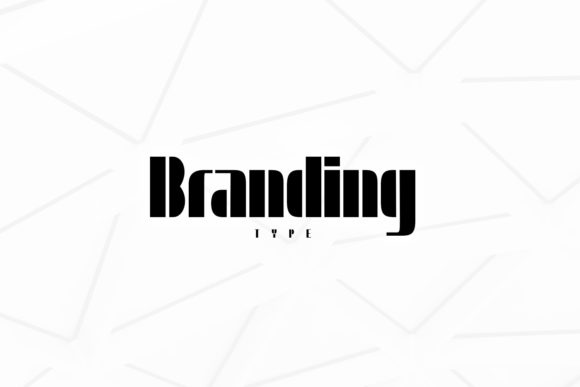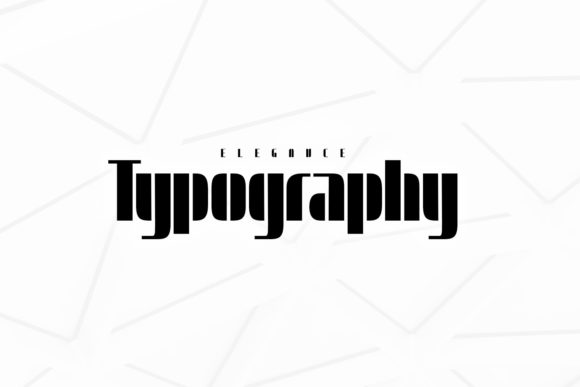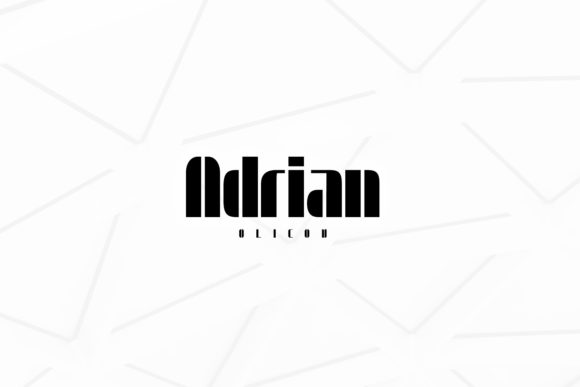
Introducing Garage Font: The Modern and Cool Display Font for Creative Projects
Are you tired of using the same old fonts for your design projects? Look no further than Garage Font, a modern and cool looking display font that’s perfect for adding a unique touch to your work. Whether you’re designing a website, creating business cards, or crafting a logo, Garage Font is the ideal choice for designers and crafters who want to make a statement.
What Makes Garage Font So Special?
Garage Font is a display font that’s designed to turn heads. Its modern and sleek design makes it perfect for projects that require a bold and eye-catching look. The font features clean lines, sharp edges, and a futuristic feel that’s sure to grab attention. Whether you’re designing a website header, a business card, or a social media graphic, Garage Font is the perfect choice for adding a touch of sophistication and style.
Key Features of Garage Font
- Modern and Cool Design: Garage Font features a modern and cool design that’s perfect for creative projects.
- Display Font: This font is specifically designed as a display font, making it perfect for headlines, titles, and other attention-grabbing elements.
- Clean Lines and Sharp Edges: The font features clean lines and sharp edges, giving it a sleek and futuristic feel.
- Versatile: Garage Font can be used for a wide range of projects, from web designs to business cards, logos, and more.
Why Choose Garage Font?
There are many fonts to choose from, but Garage Font stands out from the rest. Here are just a few reasons why:
- Unique and Creative: Garage Font is a unique and creative font that’s sure to make your project stand out.
- Easily Readable: Despite its bold and attention-grabbing design, Garage Font is still easily readable, making it perfect for use in a variety of contexts.
- High-Quality Design: The font is designed to high-quality standards, ensuring that it looks great in any size or resolution.
How to Use Garage Font
Garage Font is easy to use and can be incorporated into a wide range of design projects. Here are a few ideas to get you started:
- Web Design: Use Garage Font as a headline font for your website, or as a decorative element to add visual interest.
- Business Cards: Add a touch of sophistication and style to your business cards with Garage Font.
- Logos and Branding: Use Garage Font to create a unique and memorable logo for your brand.
- Social Media Graphics: Add a pop of personality to your social media graphics with Garage Font.
Tips for Getting the Most Out of Garage Font
Here are a few tips for getting the most out of Garage Font:
- Experiment with Different Sizes: Garage Font looks great in a variety of sizes, so don’t be afraid to experiment to find the perfect fit for your project.
- Pair with Other Fonts: Try pairing Garage Font with other fonts to create a unique and visually interesting combination.
- Use it Sparingly: Because Garage Font is a bold and attention-grabbing font, it’s best to use it sparingly to avoid overwhelming your design.
Garage Font is a modern and cool looking display font that’s perfect for designers and crafters who want to add a unique touch to their projects. With its clean lines, sharp edges, and futuristic feel, Garage Font is sure to turn heads. Whether you’re designing a website, creating business cards, or crafting a logo, Garage Font is the ideal choice for adding a touch of sophistication and style.